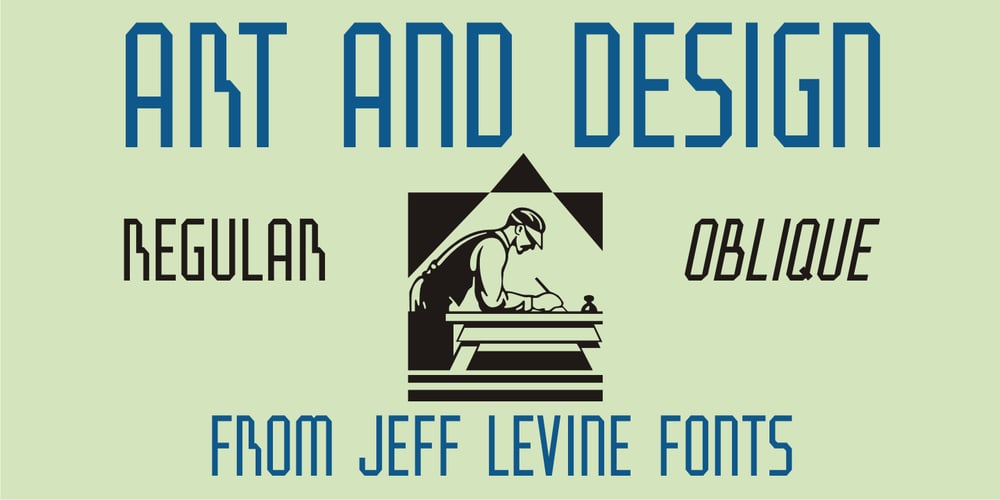
Art And Design JNL Font Family was designed by Jeff Levine and published by Jeff Levine. Art And Design JNL contains 2 styles and family package options. A 1930s-era WPA (Works Progress Administration) poster advertising a Federal Art Project exhibit entitled “Index of American Design” was the basis for Art and Design JNL.